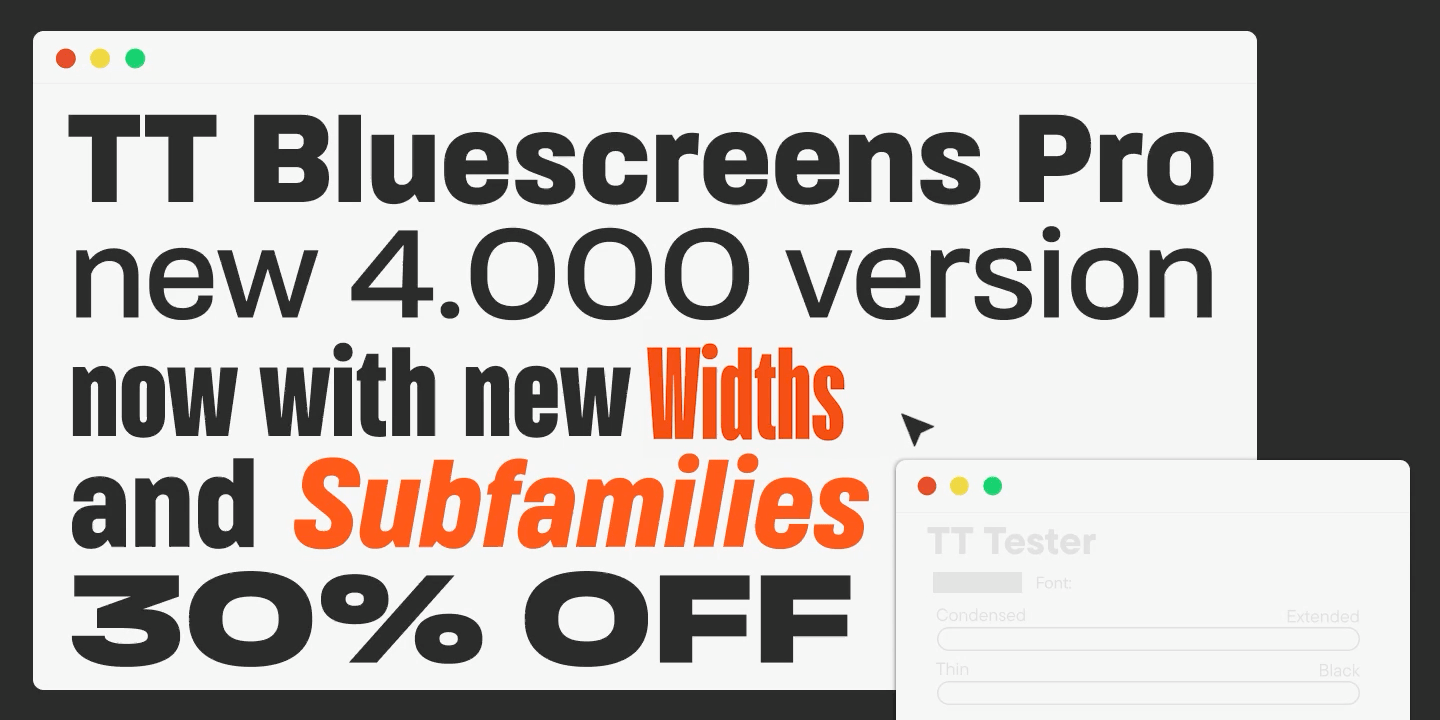
Save 30% OFF with TT Bluescreens Pro - a modular sans serif with a distinctive character and explore other top picks of the week...
TT Bluescreens has been updated to version Pro 4.000, and now this font family has become noticeably "wider" in every sense. The main new feature is three new subfamilies: Normal, Expanded, and Extended. Together with these, the typeface now offers five widths—from Condensed and the base TT Bluescreens Pro to the maximally stretched Extended. This range gives you the freedom to play with scale and mood: making the typesetting dense and compact or, conversely, wide and poster-like.
Another important improvement is the updated variable font, which unites all five widths into a single variable system: you can quickly find the necessary "degree of expansion" right in the middle of your workflow.